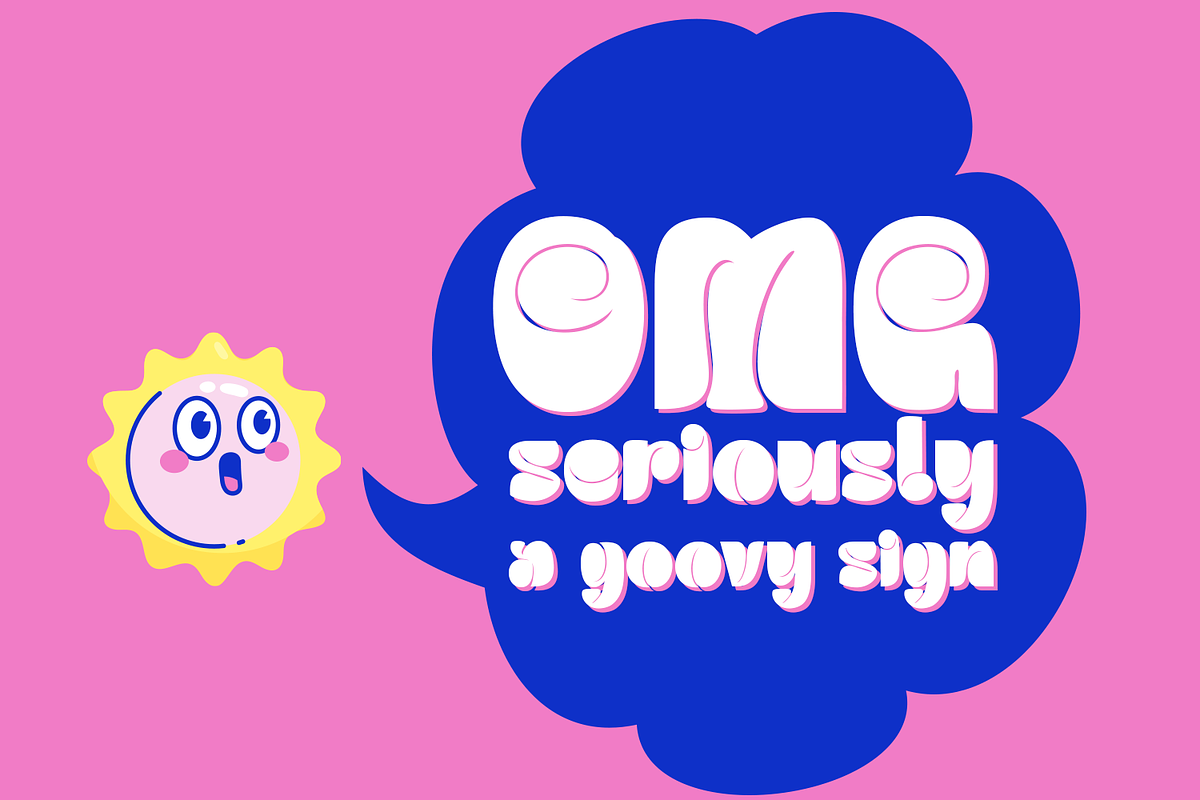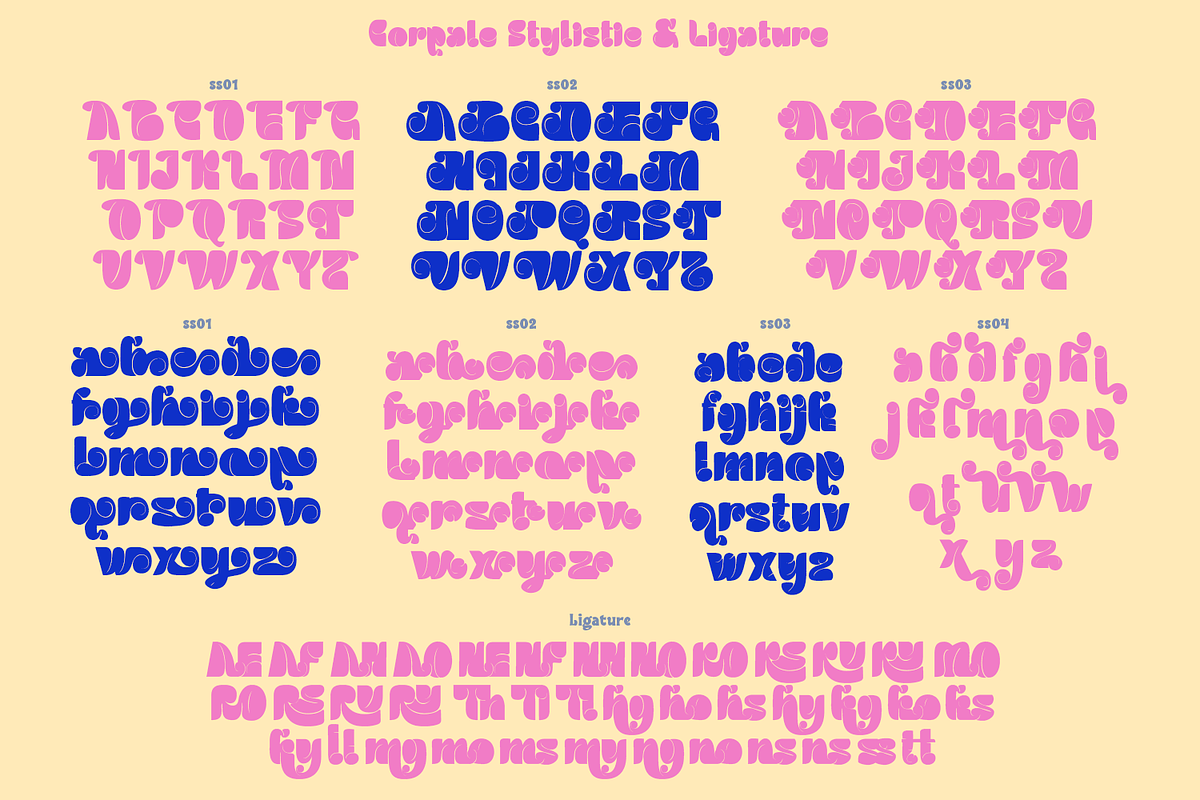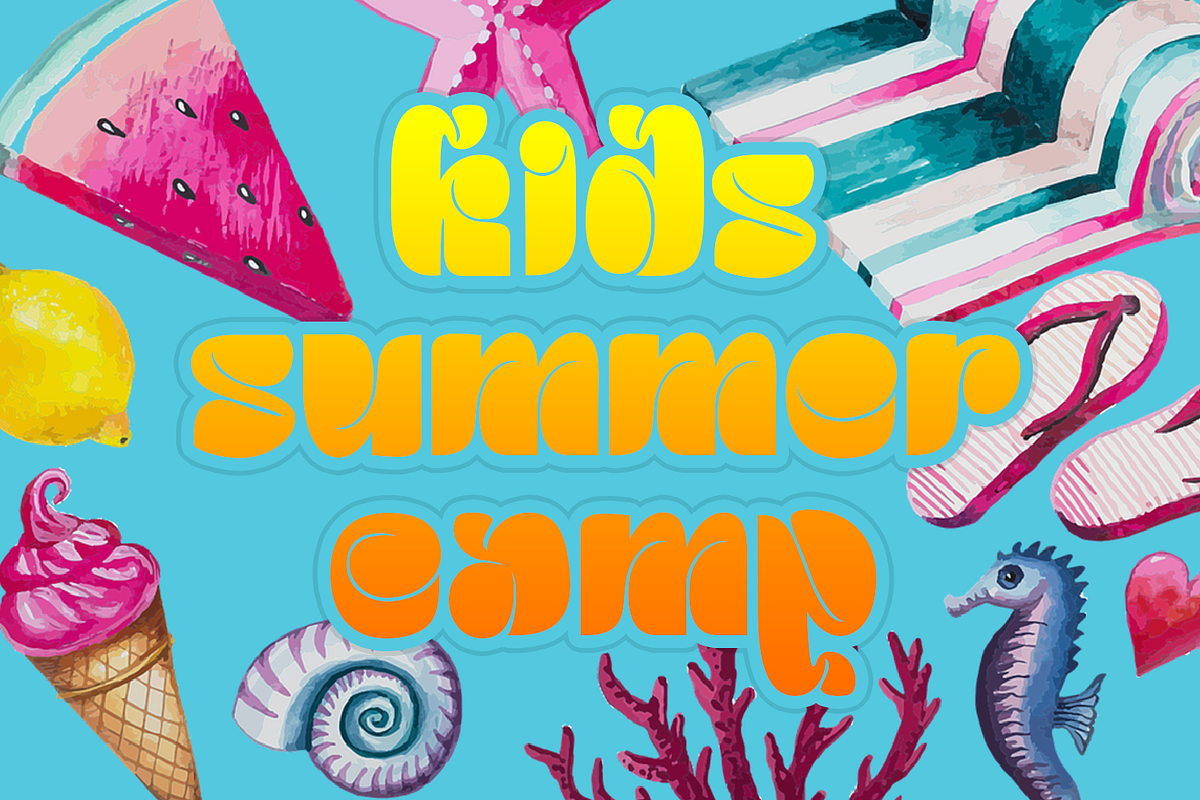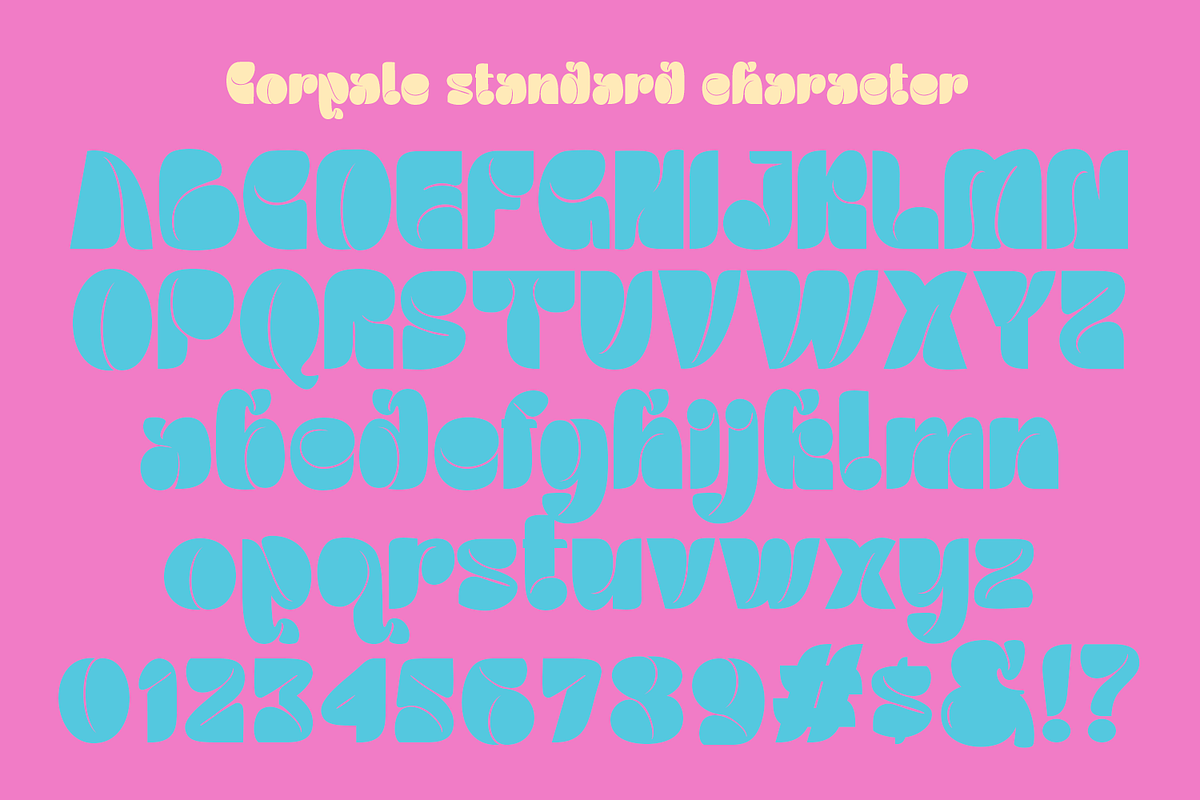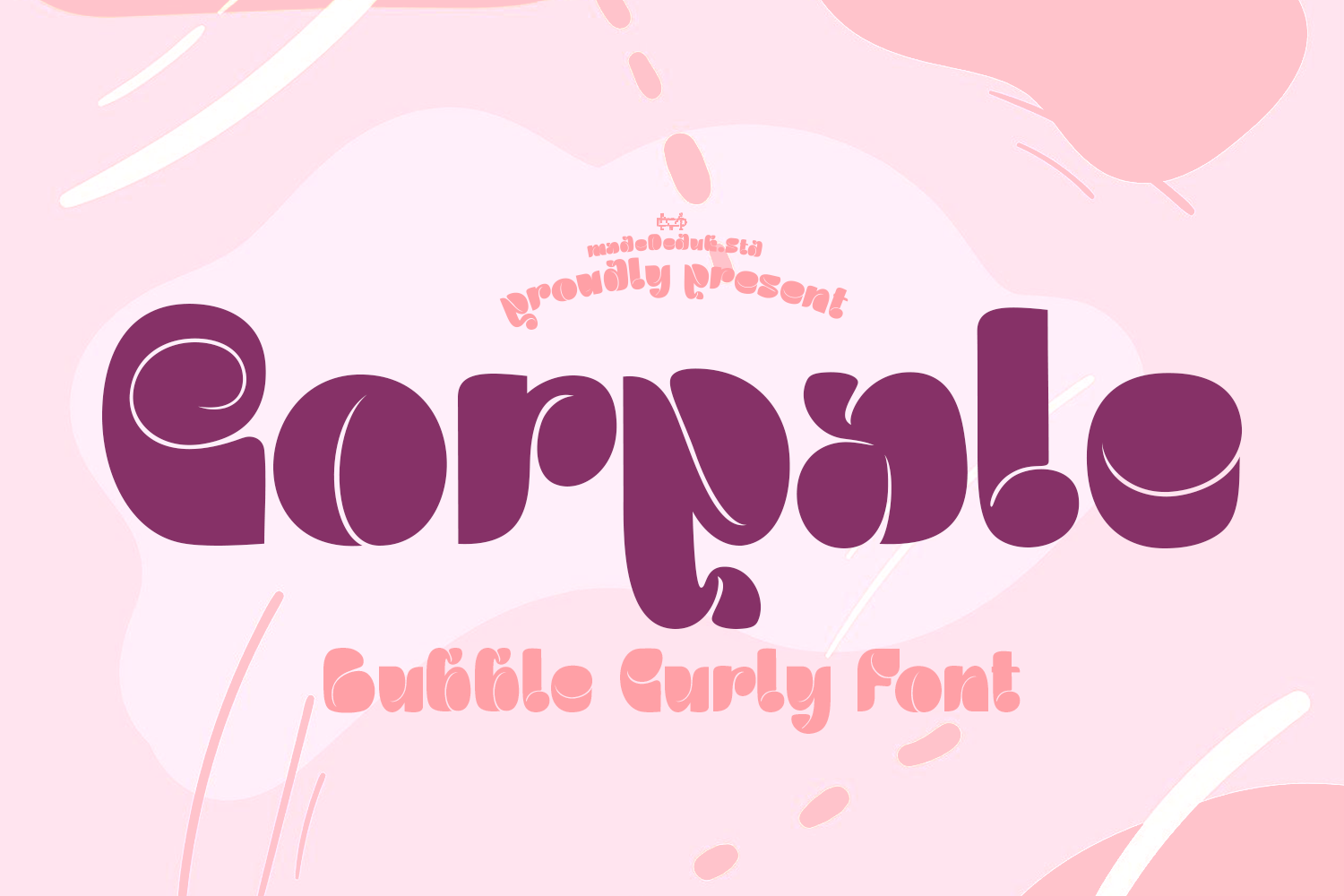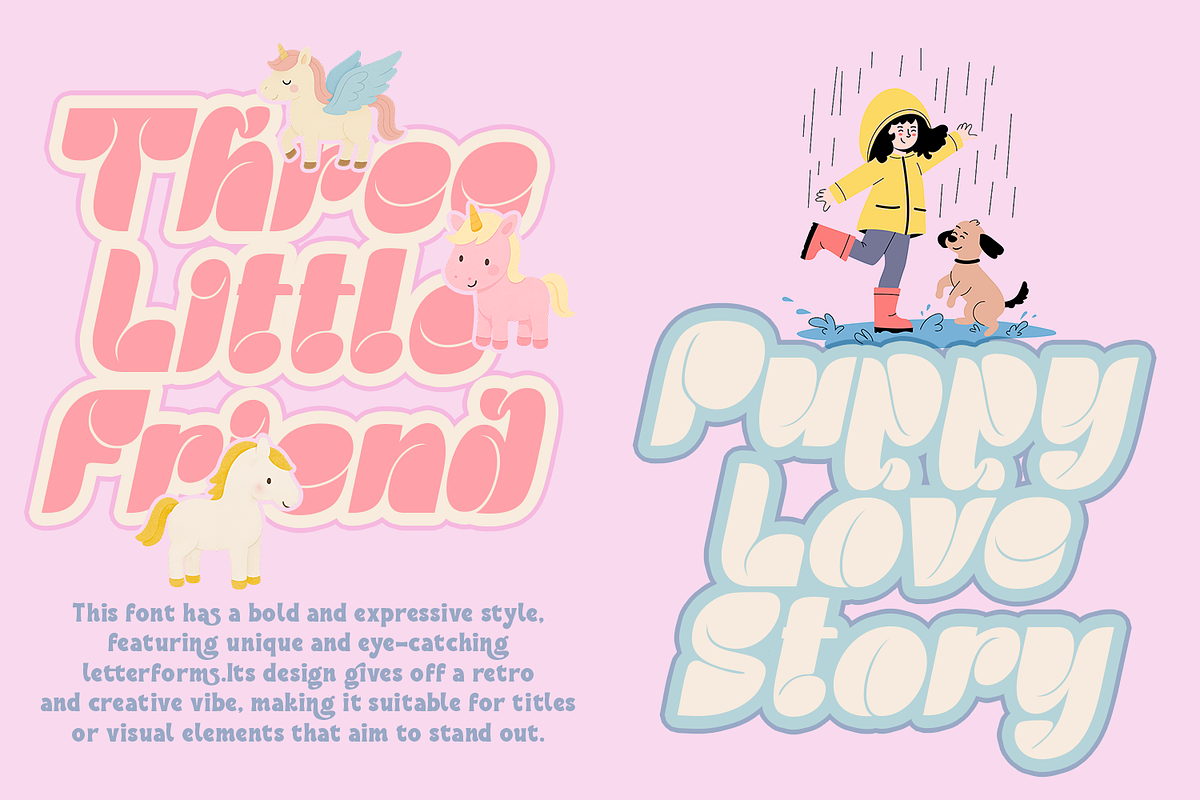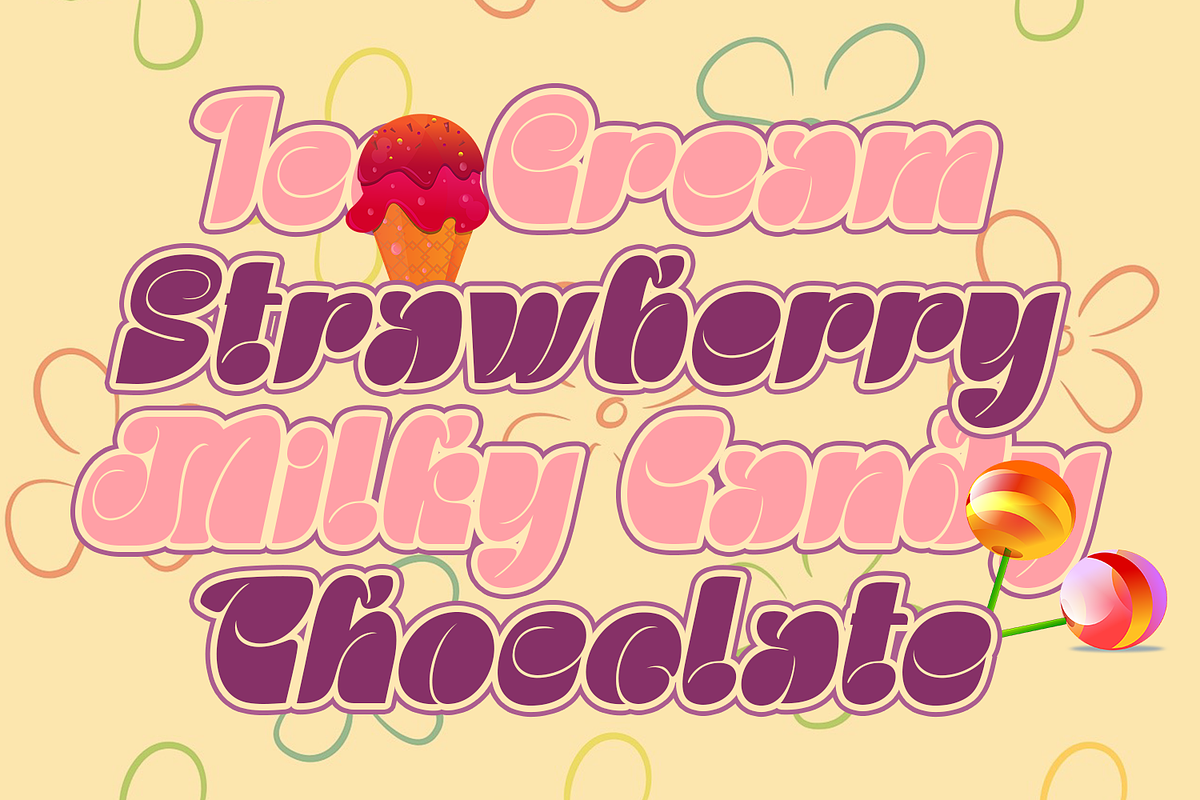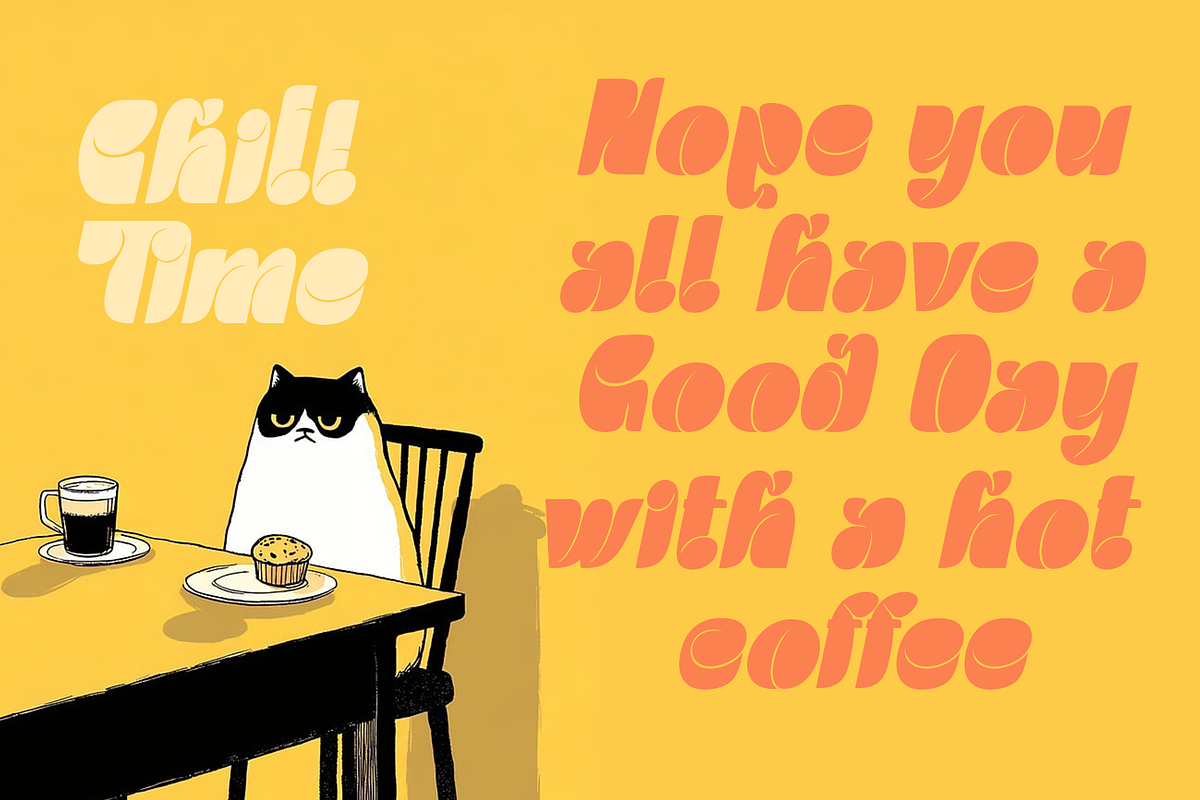
Corpale Bubble Curly Font
Introducing Corpale, the bubble curly font characterized by its bold and expressive style with unique, eye-catching letterforms. This design exudes a retro and creative vibe, making it ideal for titles or visual elements that need to capture attention. Perfect for a wide range of applications, including book titles, branding, product packaging, invitations, quotes, labels, posters, and logos, this font is a powerful choice for any creative endeavor.